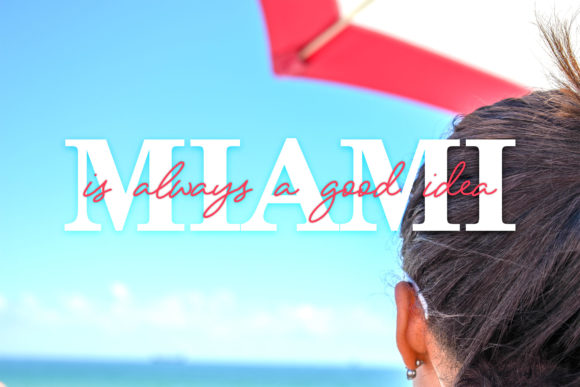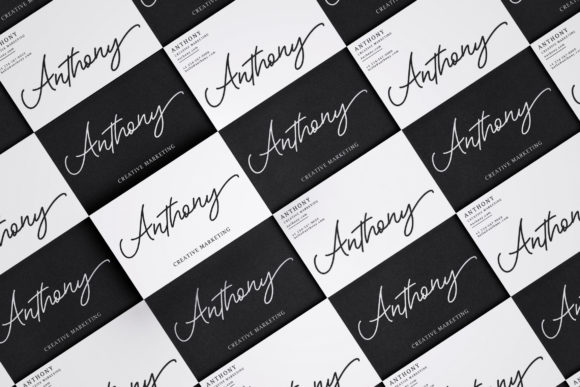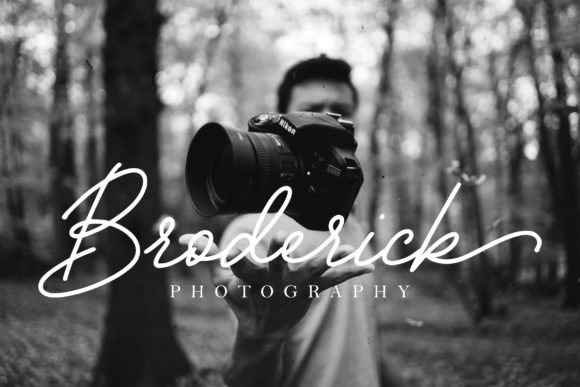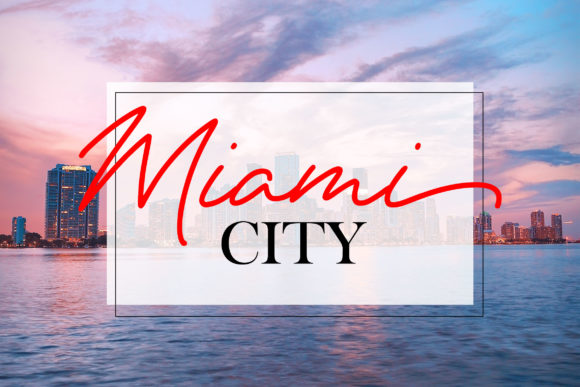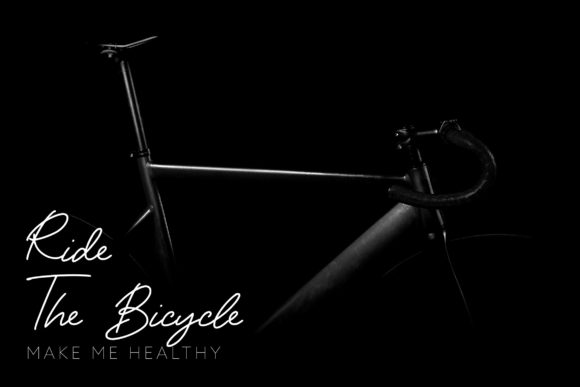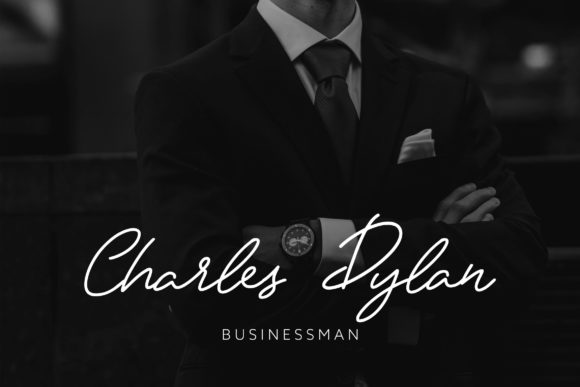
Introduction to Manttulcuy Font
Have you ever stared at a blank canvas, waiting for that spark of creativity to strike? The blank page can be intimidating, but sometimes all it takes is the right tool to bring your ideas to life. For designers, the perfect font can be the difference between a decent design and a truly exceptional one. That’s where the Manttulcuy Font comes in – a gorgeous signature script that will elevate any design project to new heights.
This beautiful font is a valuable resource for designers, offering a unique charm that can add a personal touch to any creative project. With its high-quality design, it’s perfect for those looking to create stunning visuals that stand out from the crowd. And the best part? It’s available for free download, making it an accessible design resource for designers of all levels.
Key Features of Manttulcuy Font
- High-quality design resource for creative projects, featuring a unique and stylish aesthetic.
- Unique characteristics, such as intricate details and bold lines, make it an ideal choice for designers looking to add a touch of sophistication to their work.
- Can be used for a variety of design applications, including logos, branding, and editorial content, due to its versatility and high-quality design.
Honest Review: Manttulcuy Font
I recently came across the Manttulcuy Font and was excited to give it a try. The free download was a major plus, and the high quality design made it a great addition to my design resource library.
What works well: ✨ The Manttulcuy Font is perfect for creative projects that require a unique and eye-catching font. The transparent background option is also a great feature, allowing for seamless integration with any design. The font is highly customizable, making it easy to adapt to different design styles.
What doesn’t work well: ⚠️ While the font is high quality, it can be a bit overwhelming to use for smaller text or body copy. The bold lines and intricate details can make it difficult to read in certain contexts.
Overall, I’m impressed with the Manttulcuy Font and would highly recommend it for any creative project. With its unique design and high quality features, it’s a great addition to any design resource library.
Manttulcuy Font
The Manttulcuy Font is commonly used in:
- Social media graphics and advertisements